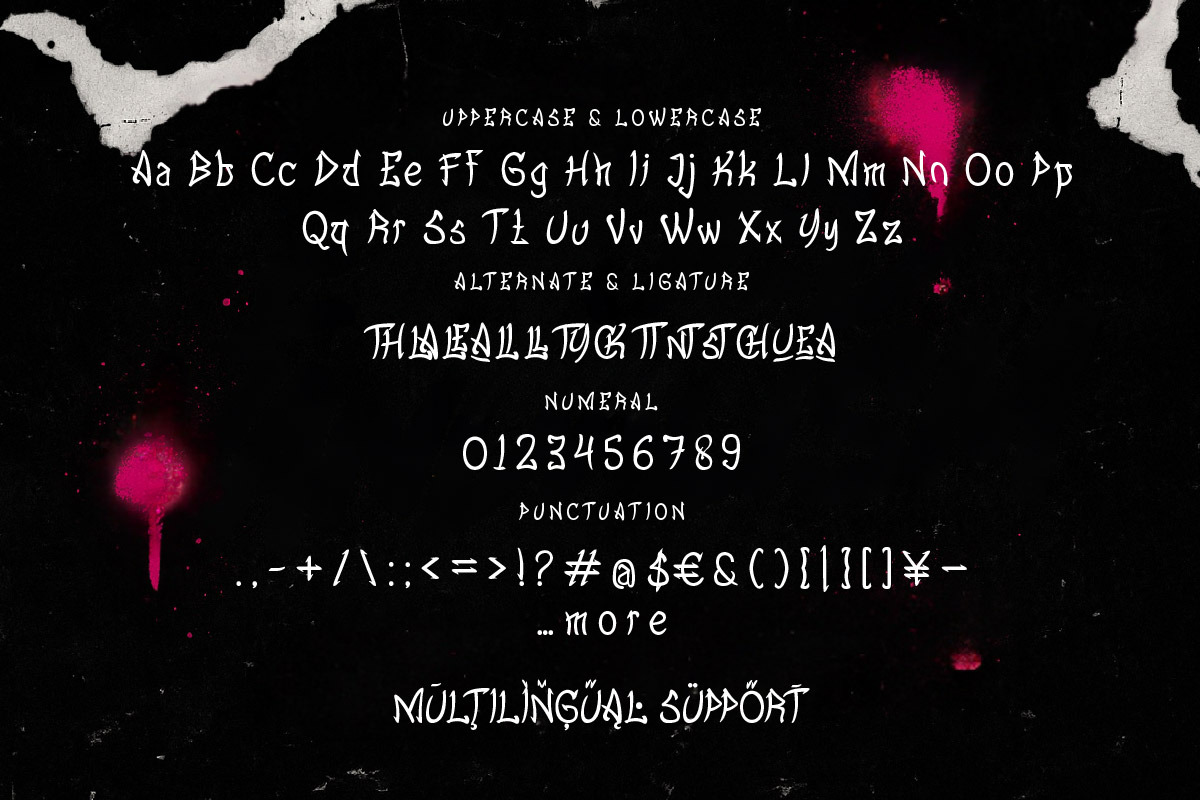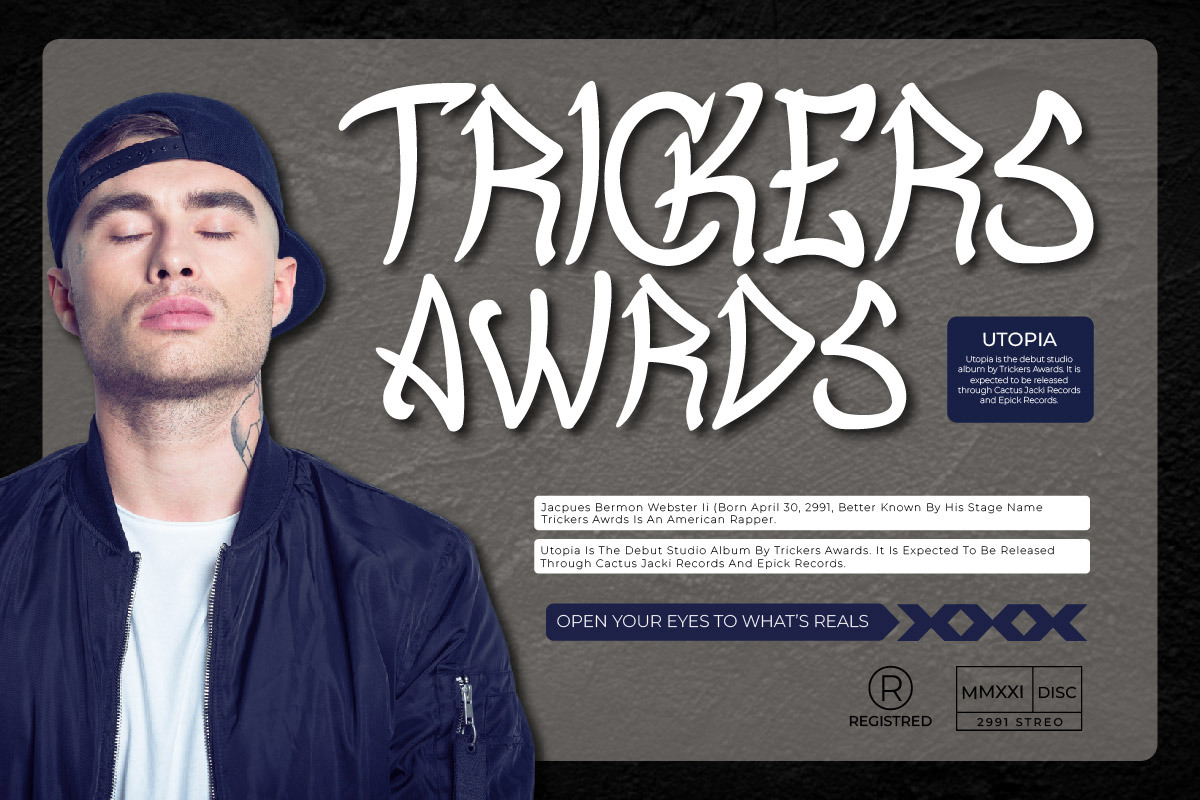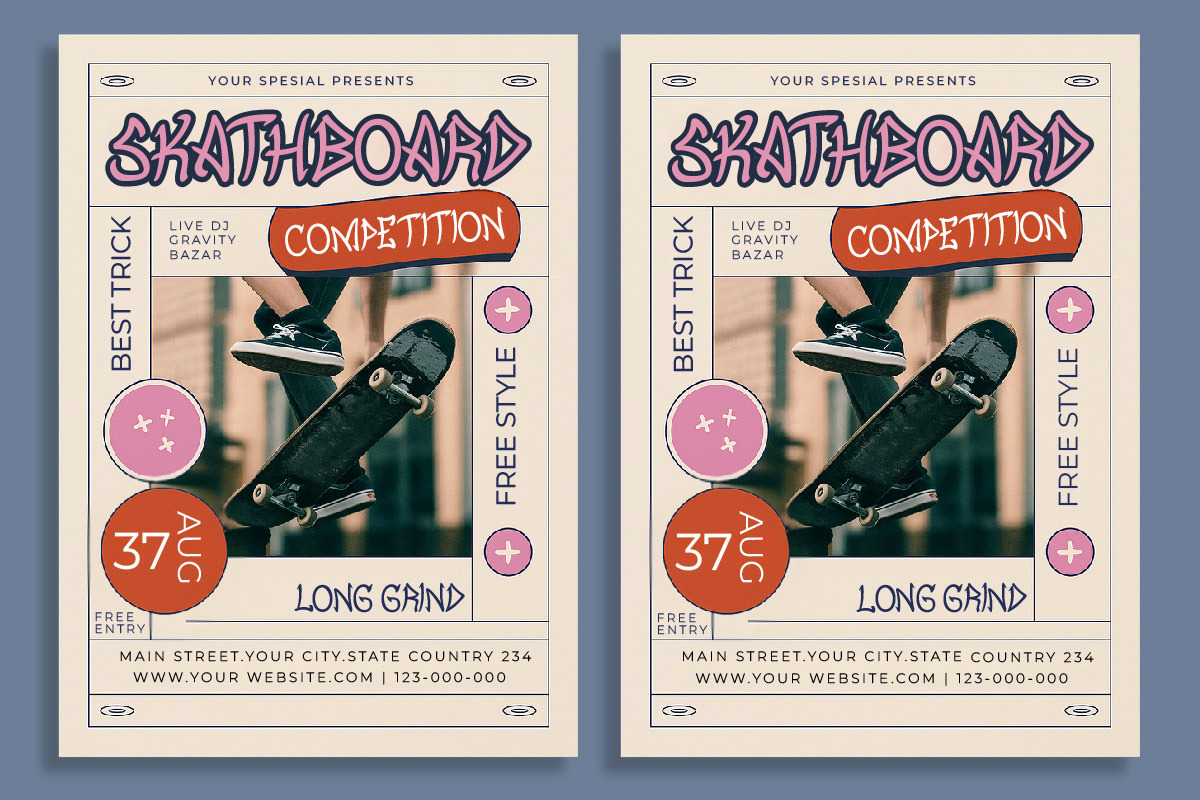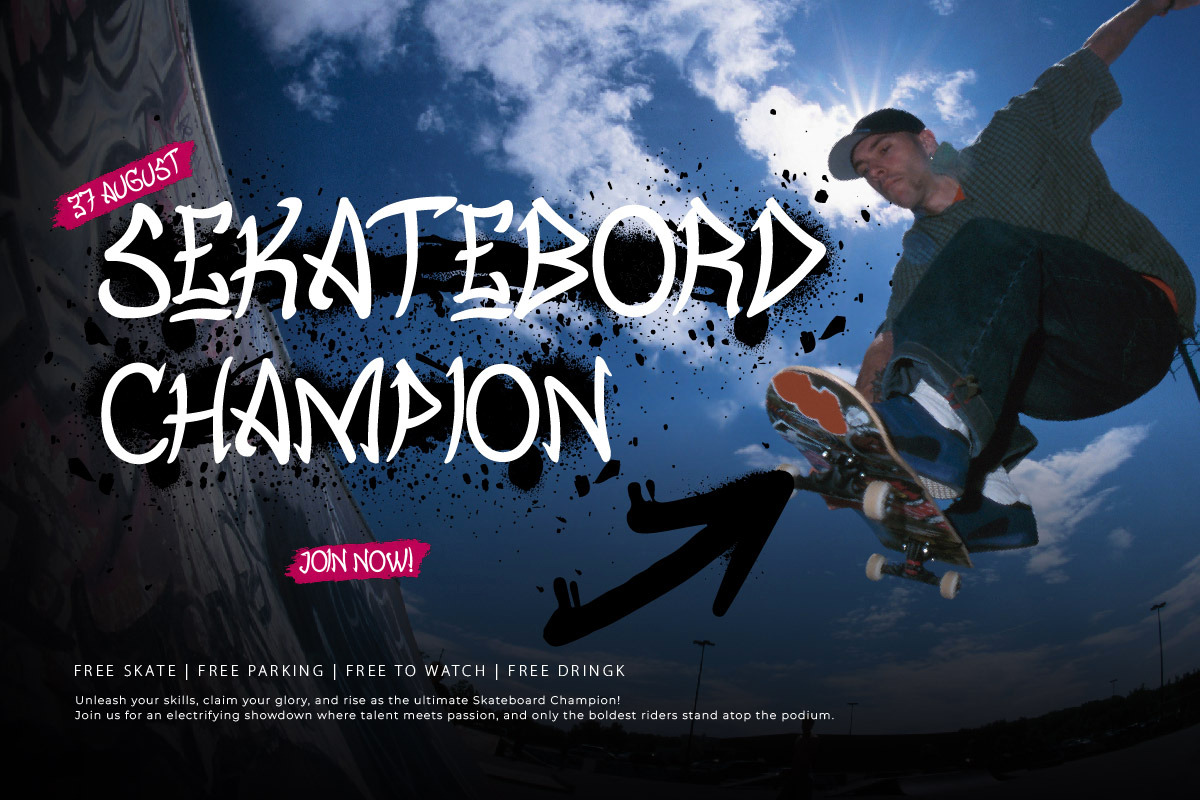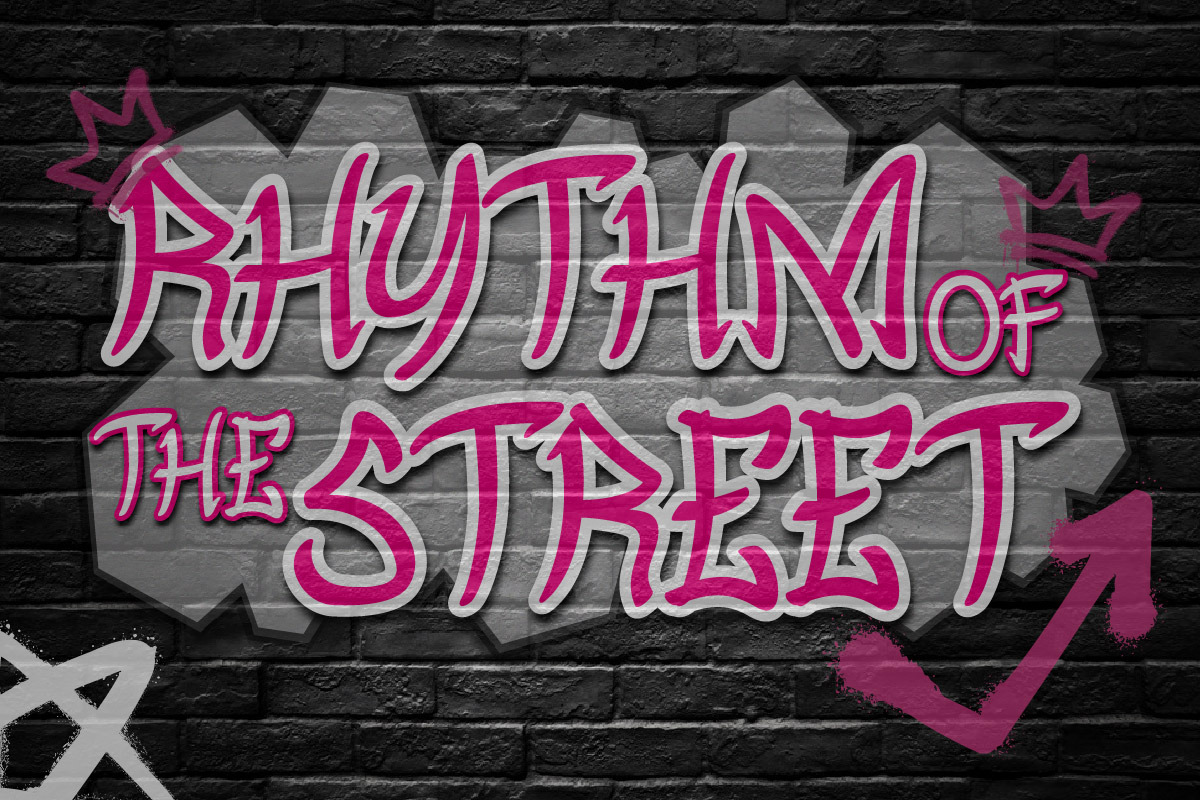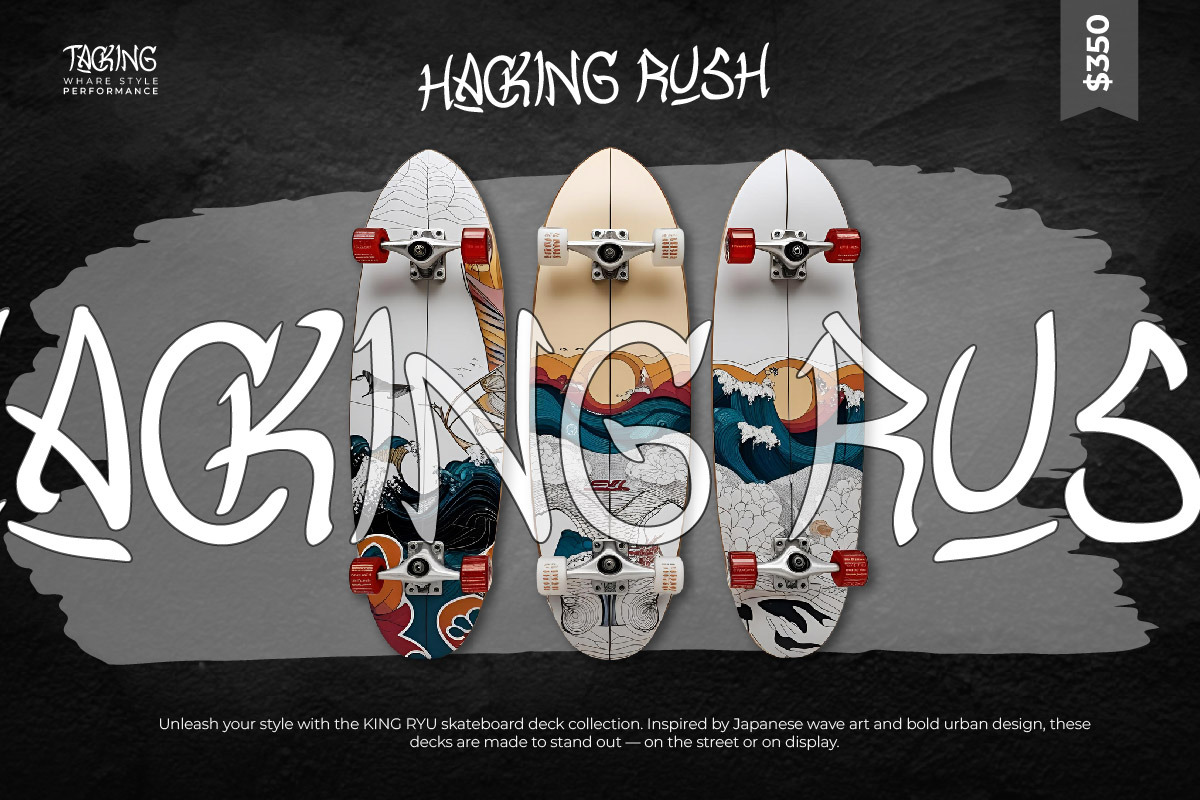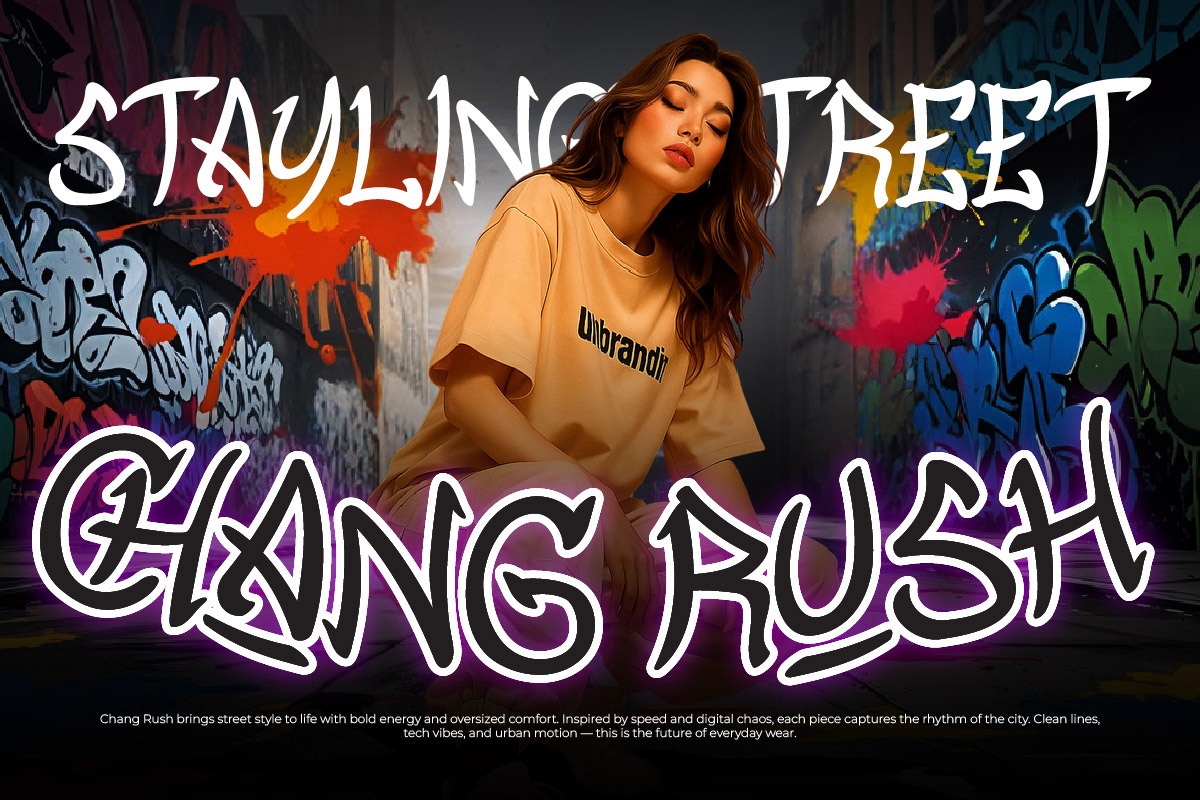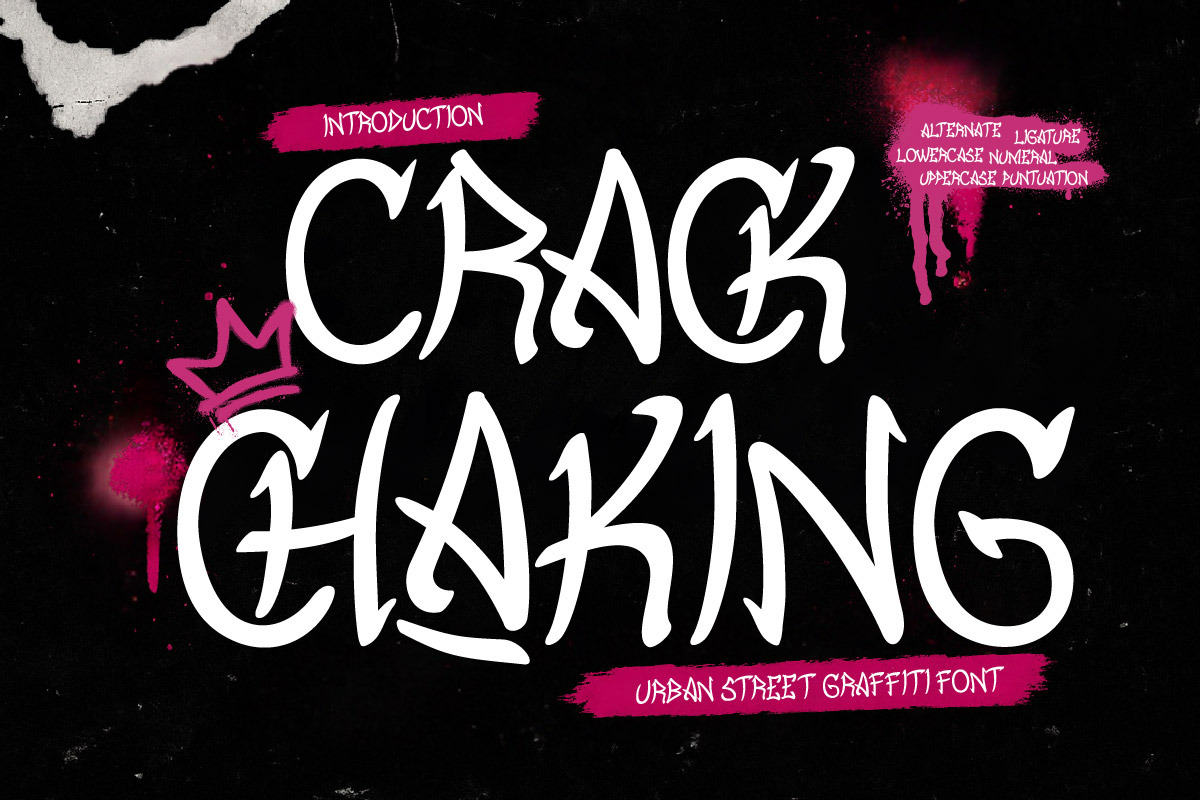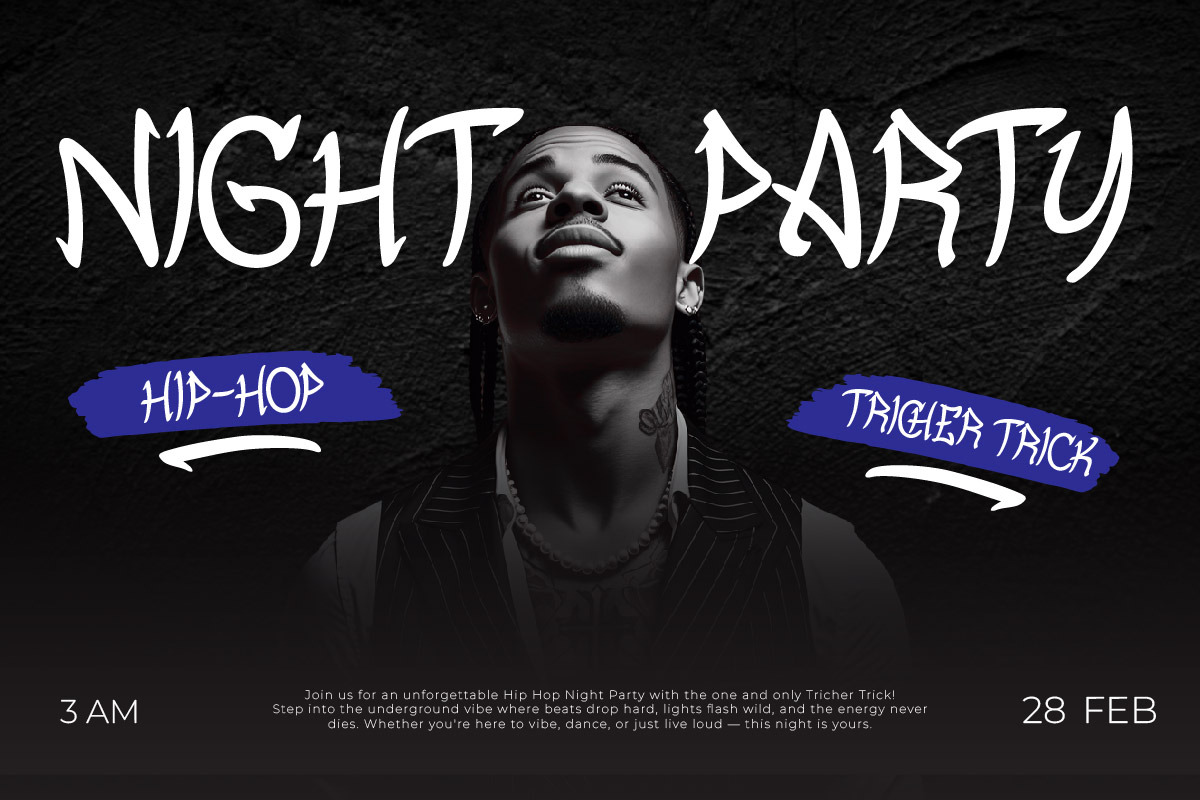
Crack Chaking - Street Graffiti Font
Crack Chaking is a fierce and rebellious street graffiti font that explodes with urban attitude. Inspired by raw spray paint art and bold tagging styles, this display typeface is built for designers who dare to be loud, expressive, and unapologetically bold.
With its jagged edges, aggressive flow, and authentic street-style strokes, Crack Chaking captures the essence of underground graffiti culture. It's the perfect choice for music posters, streetwear branding, extreme sports visuals, and any design project that needs a punch of urban chaos.
This font includes uppercase letters, lowercase alternatives, numbers, punctuation, and multilingual support—making it as versatile as it is eye-catching. Whether you're designing album artwork, skate brand logos, or edgy social media content, Crack Chaking delivers raw energy and visual impact that can't be ignored.
Bring the streets to your canvas and make your message roar with Crack Chaking.